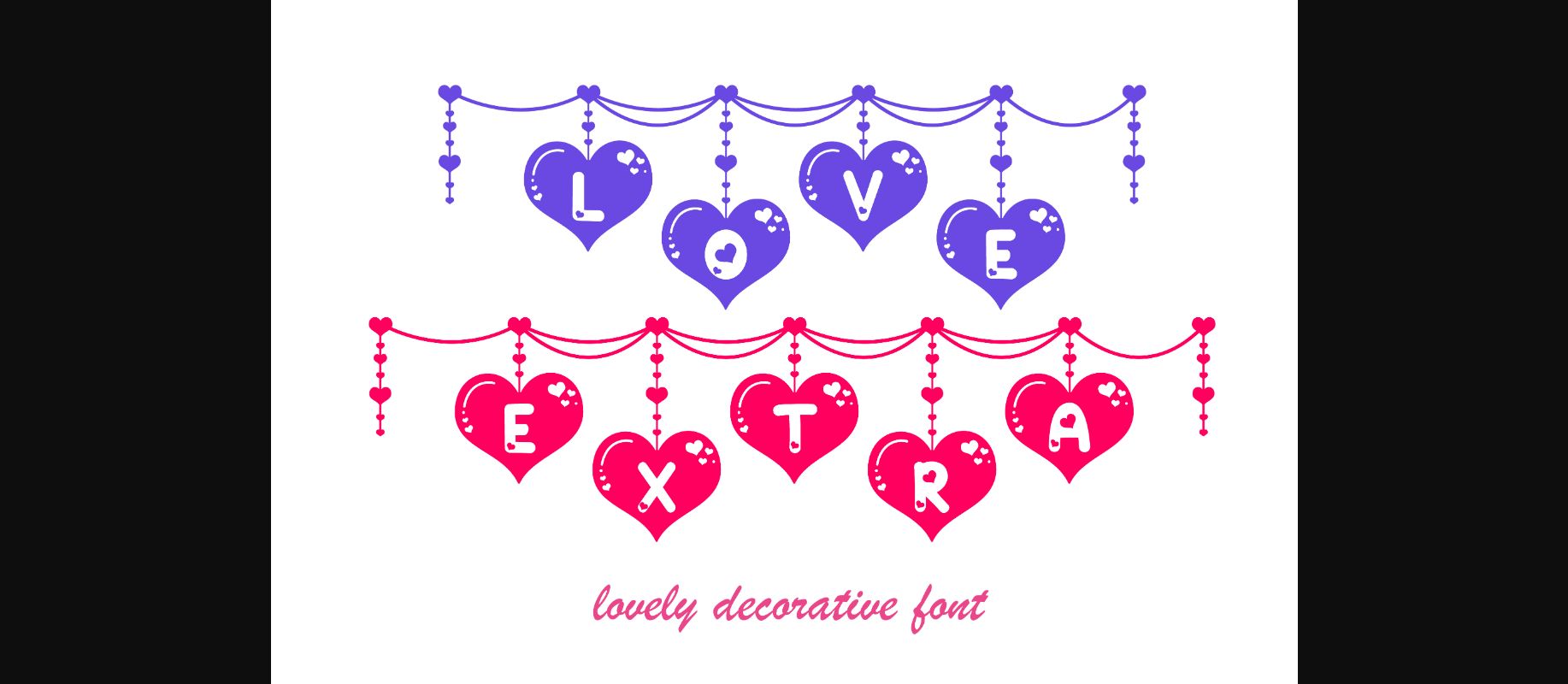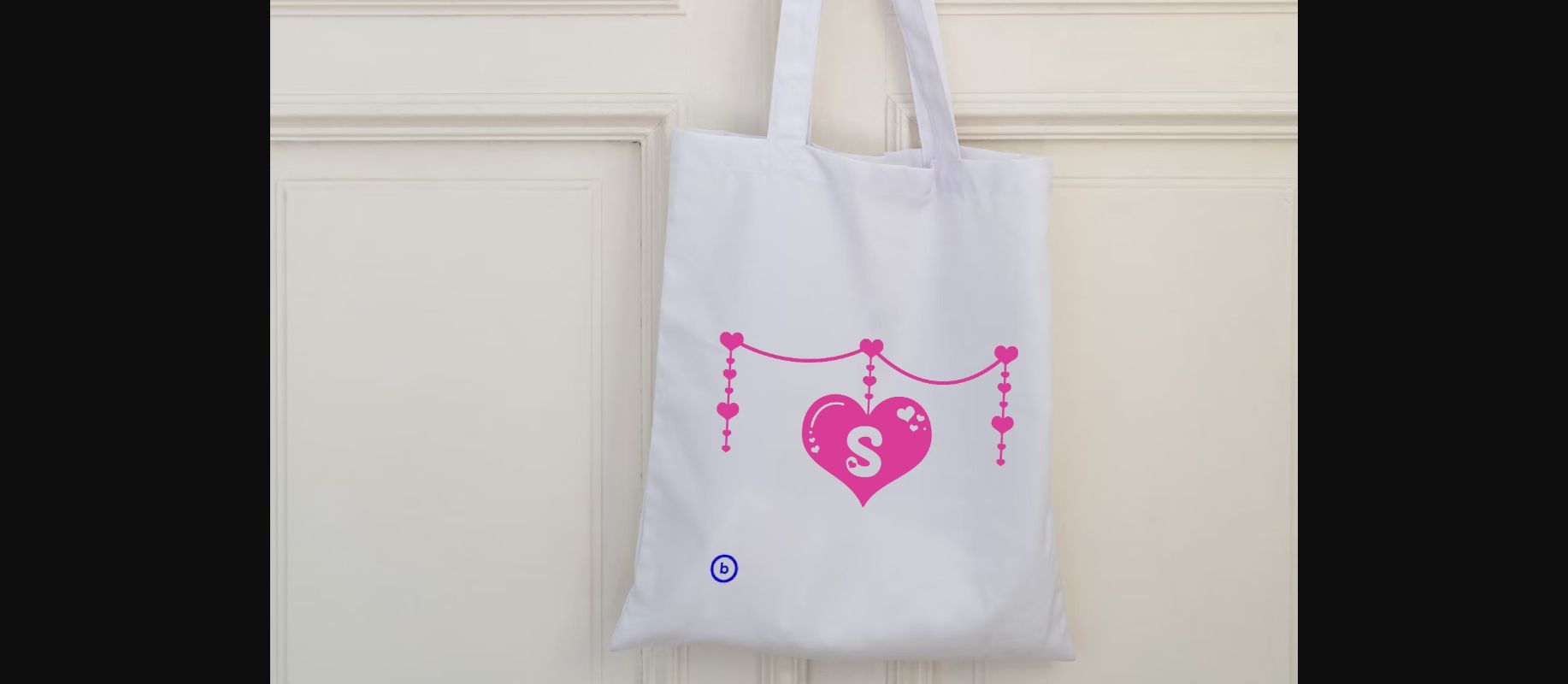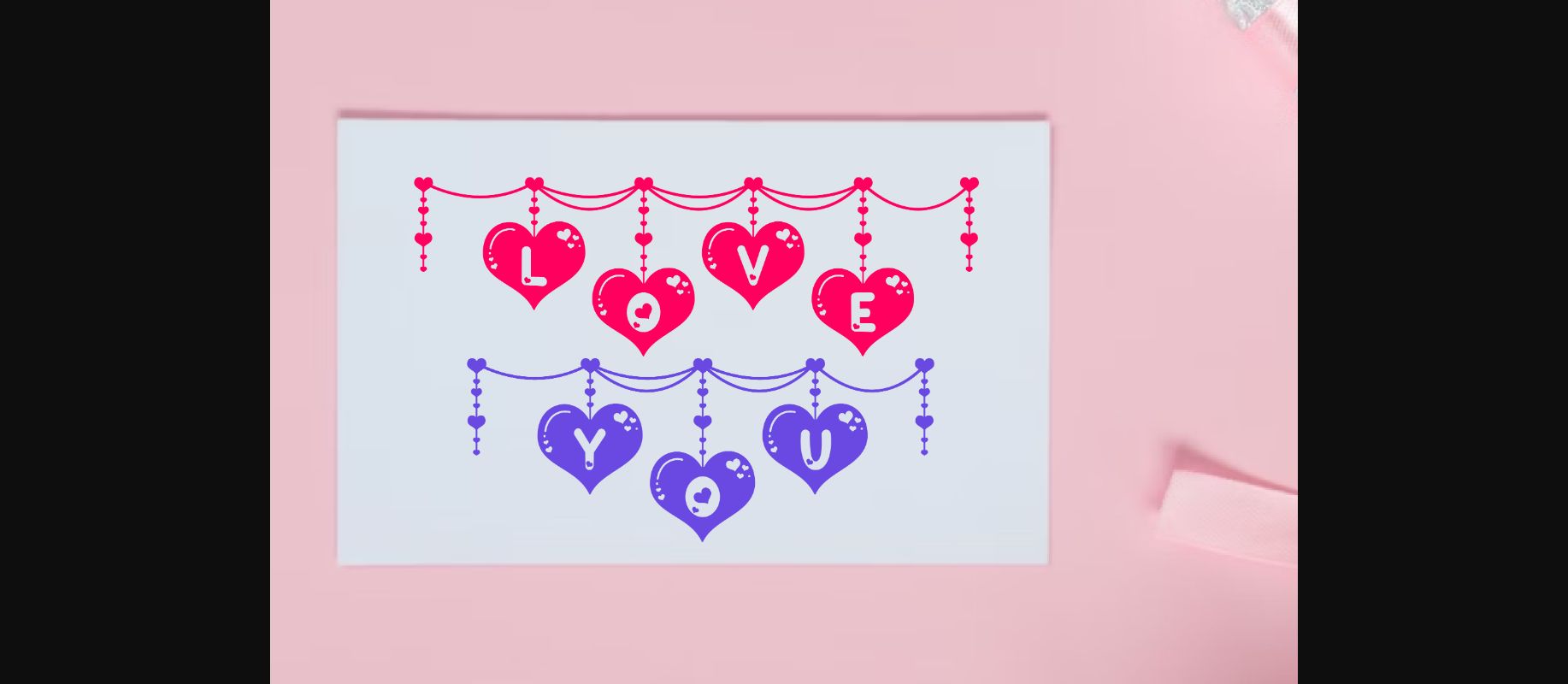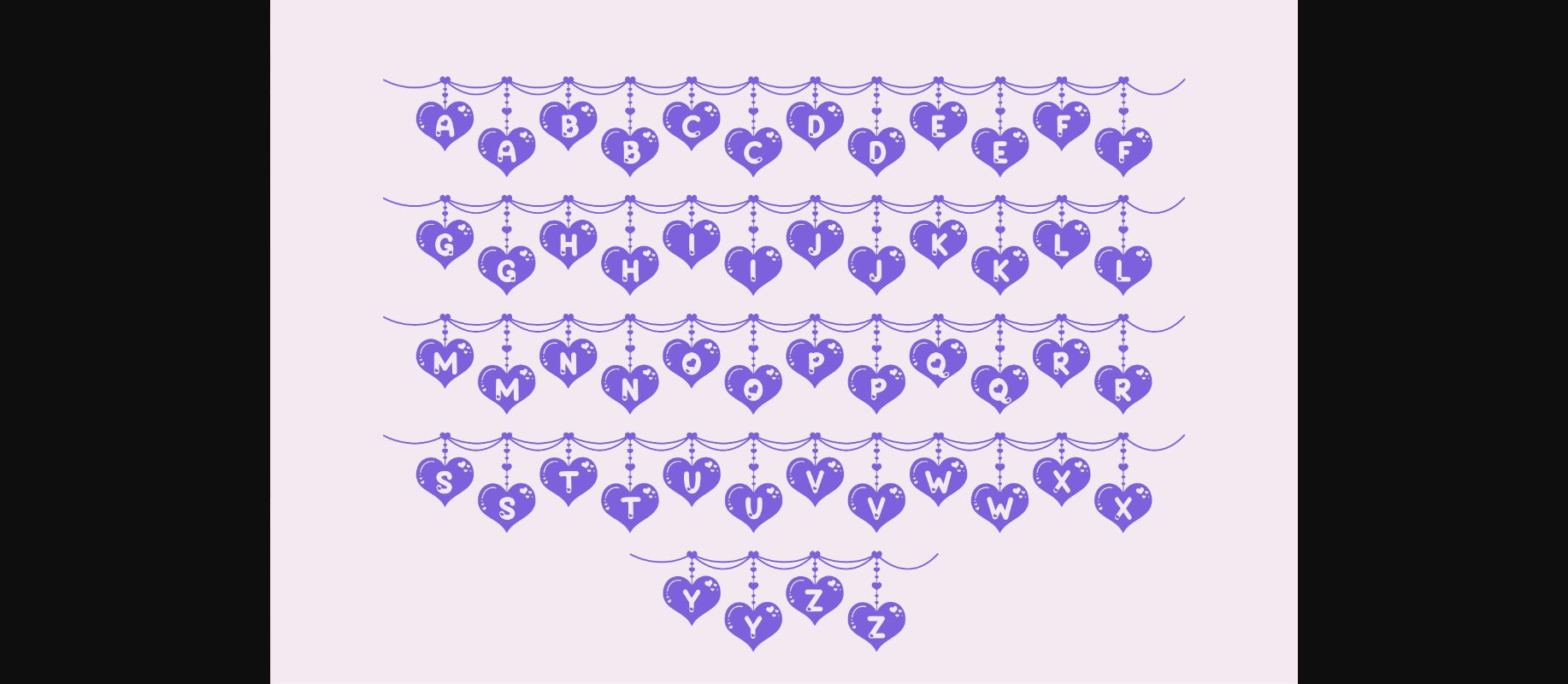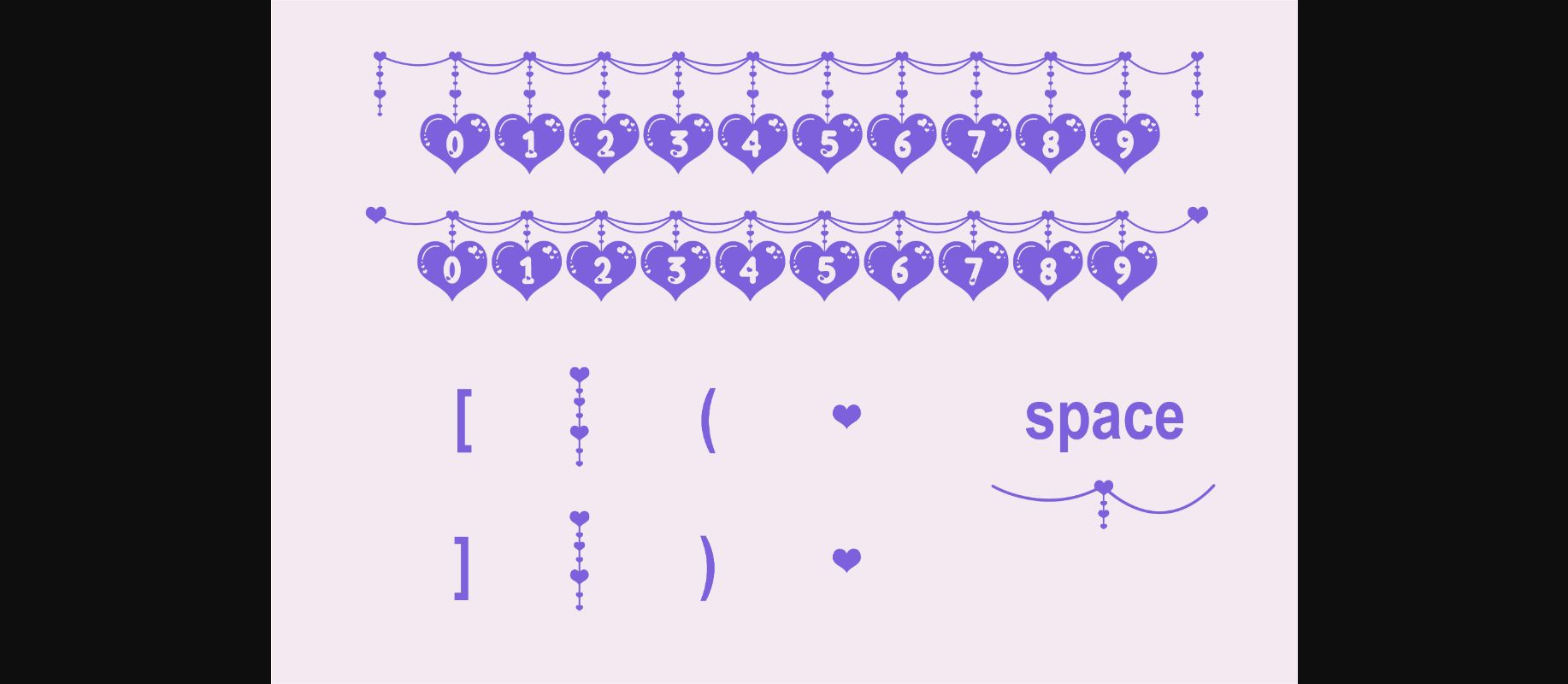
Love Link Extra Font
About Love Link Extra Font
Love Link Extra is a cute and charming string of hearts. Connected by a series of ornamental links that add to the decorative feel. This whimsical design is ideal for romantic occasions, such as Valentine’s Day, anniversaries, or for embellishing wedding invitations and love-themed stationery.